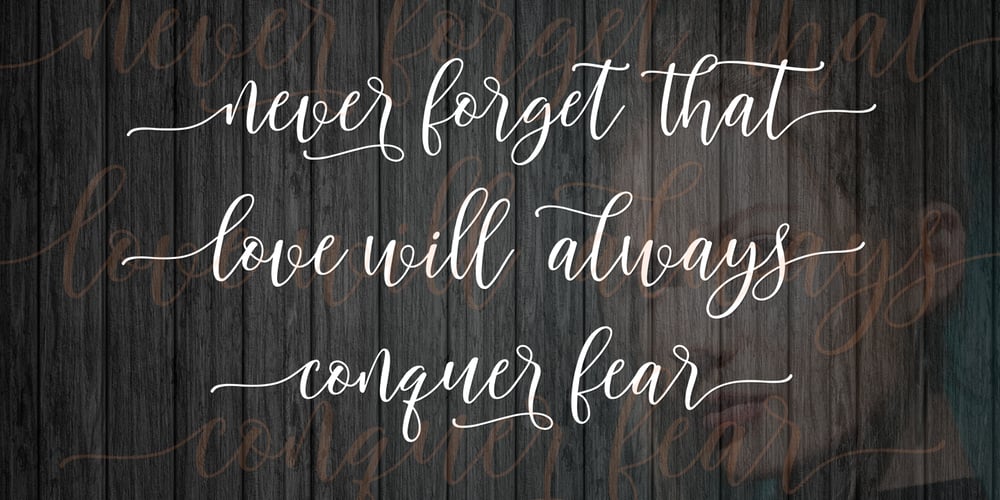
Strengthen Script Font Family was designed by Mur Zani and published by Zane Studio. Strengthen Script contains 1 styles and family package options. Strengthen Script is a new modern script font with an irregular base line. Trendy and feminine style. Strengthen Script looks beautiful in wedding invitations, thank-you cards, quotes, greeting cards, logos, business cards, and more. Perfect for use in ink or watercolors. Includes initial letters and terminals, alternatives and support for many languages. To activate the OpenType Stylistic alternative, you need a program that supports OpenType features such as Adobe Illustrator CS, Adobe Design & CorelDraw X6-X7, Microsoft Word 2010 or newer versions. Use Character Maps (Windows), Nexus Fonts (Windows), Book Fonts (Mac) or software programs like PopChar (for Windows and Mac). How to access all alternative characters: https: //www.youtube.com/watch? v = Go9vacoYmBw https: //www.youtube.com/watch? v = XzwjMkbB-wQ need help or have questions, let me know. I am happy to help ๐ Thank you & Congratulations on the Design!